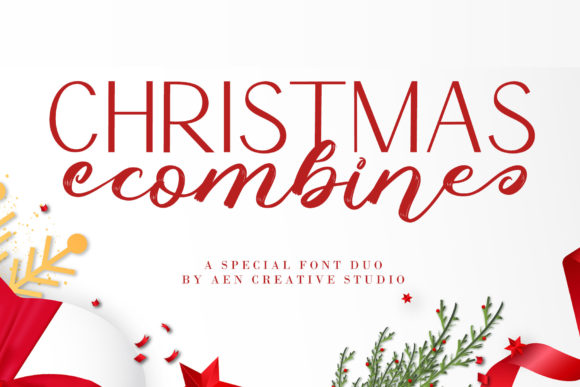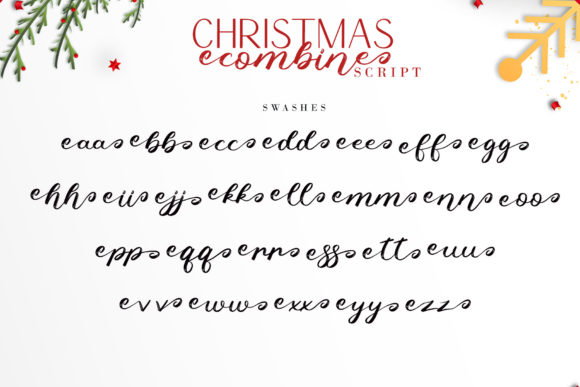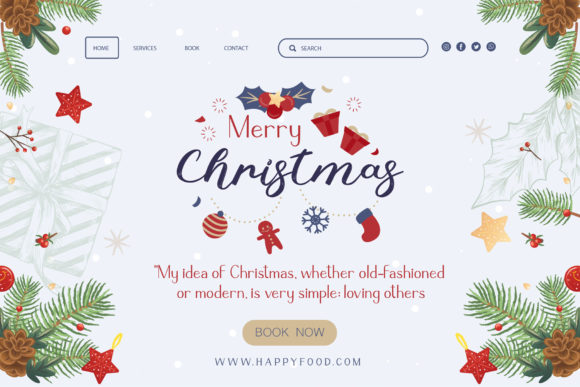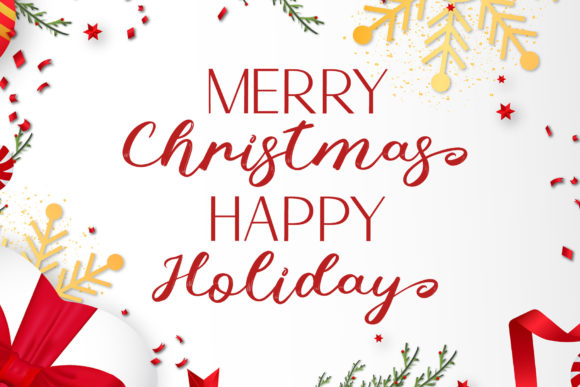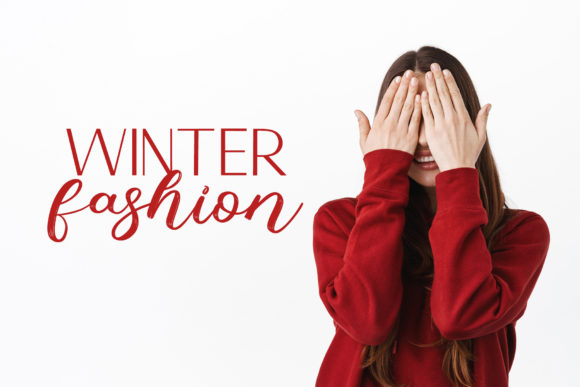
About Christmas Combine Font
Christmas Combine consists of two fonts designed to complement each other perfectly. Together or apart, these fonts are ideal for adding a chic and cheery touch to your crafts. This font is PUA encoded which means you can access all glyphs and swashes with ease!